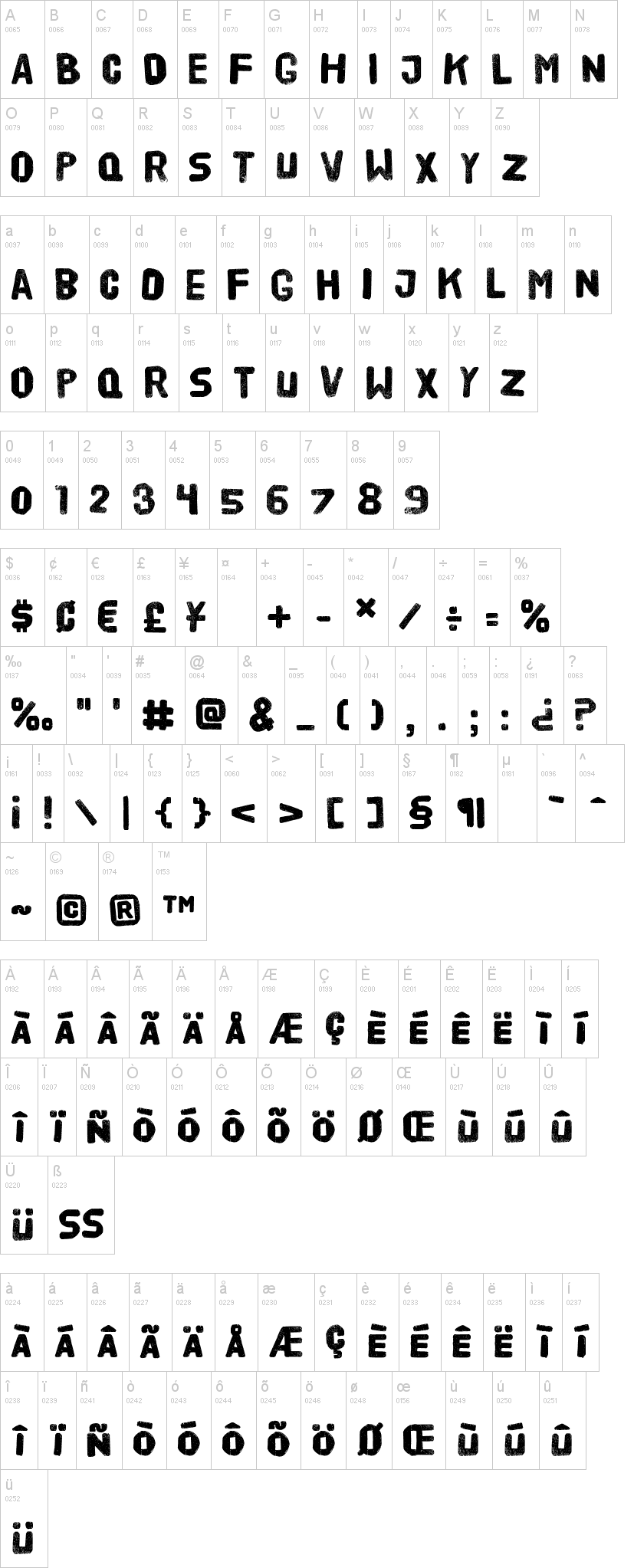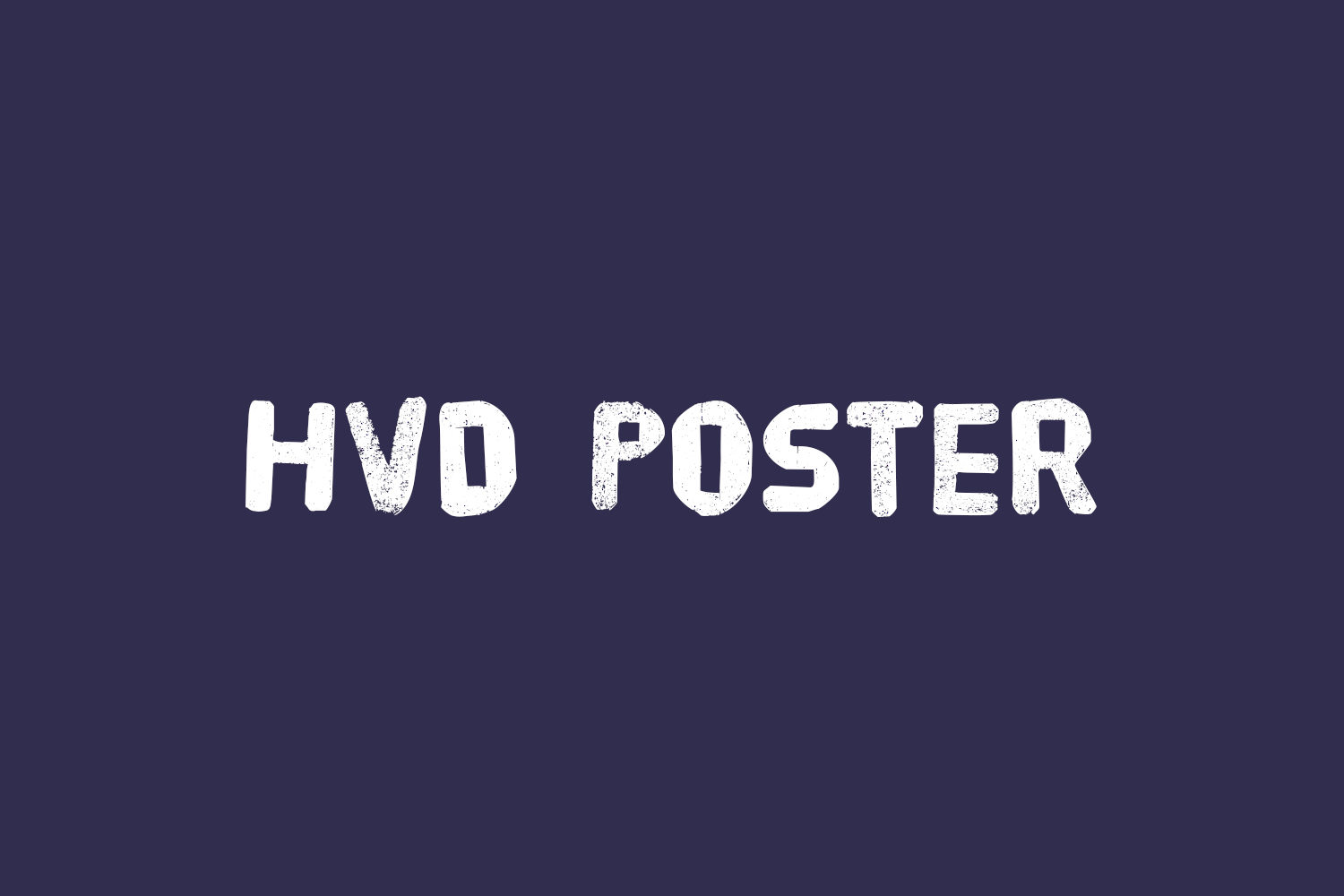
Hvd Poster Font
Hvd Poster Font - Web • this typeface is free for personal and commercial use. Web download donate to author. 304,312 downloads (12 yesterday) 3 comments. Chunky, grunge, thick, stamped, eroded, free for. Web hvd poster | hvd fonts. Web explore hvd poster clean designed by hannes von döhren at adobe fonts. Hvd poster à € by hvd fonts.
HVD Poster Font
HVD Poster Clean font